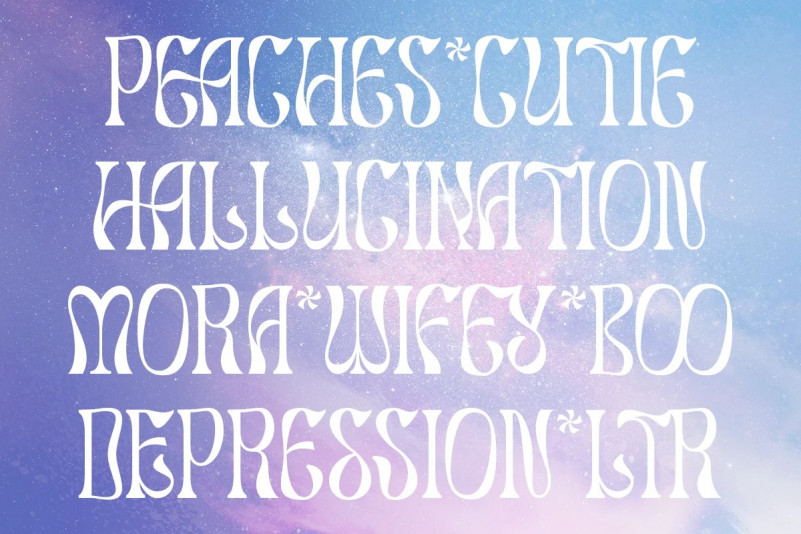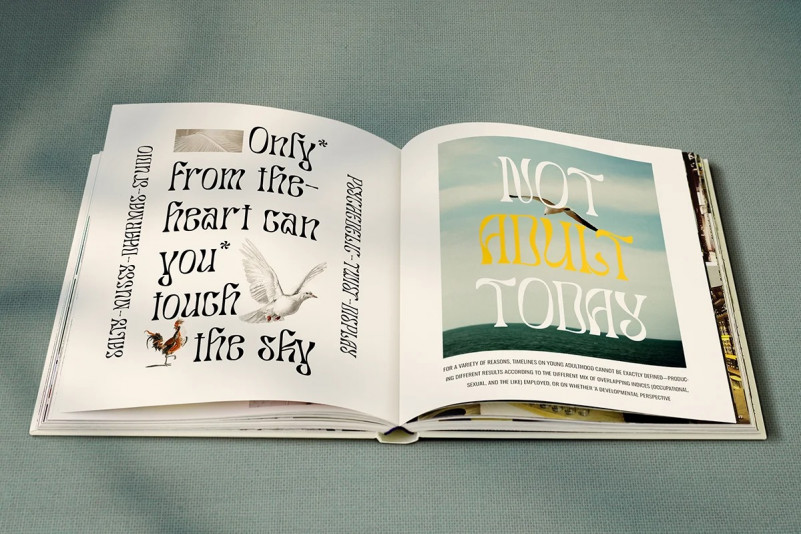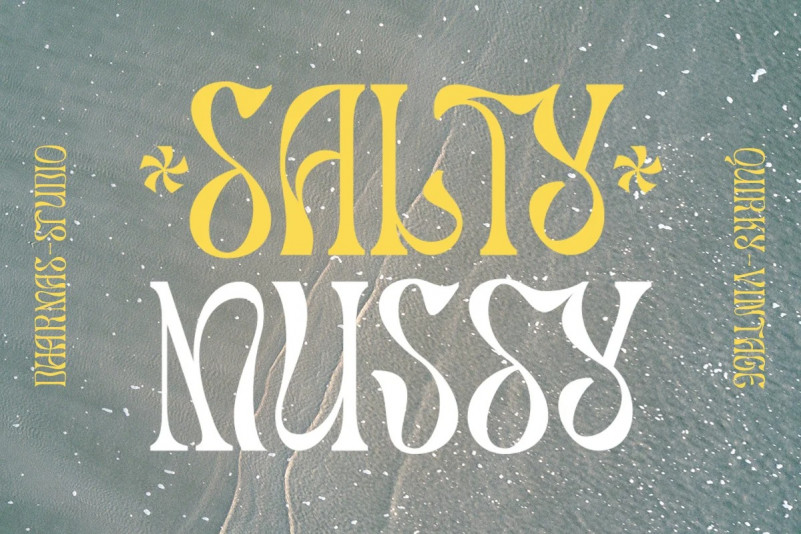
Danaela Font
Danaela Font, a sophisticated and contemporary sans serif font. Intricately designed, it comprises upper-case characters, numbers from 0-9, and a diverse collection of punctuation marks and symbols. With its versatility propelling its usability, Danaela Font is your go-to choice for a multitude of applications. Whether you’re crafting inviting wedding announcements, engaging quotes, eye-catching advertisements, or glossy magazine prints, Danaela effortlessly enhances your creative design journey. It’s high-end aesthetic makes it an ideally streamlined solution for emblematic logo designs. Danaela – where style meets functionality in the realm of typefaces.